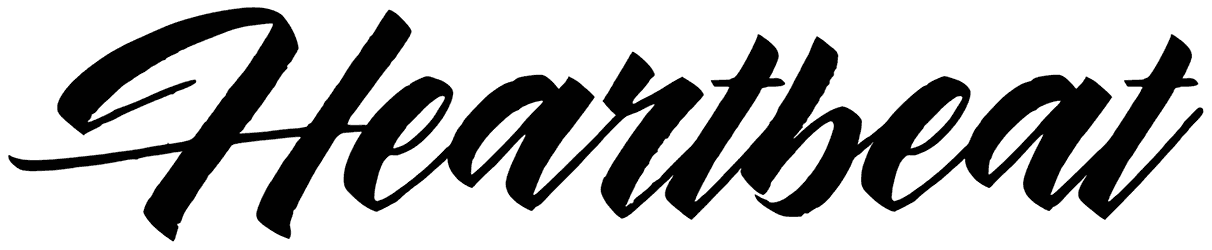
Heartbeat Font
It may seem tough to pick the proper font for a design, but the fact is that RB is here to help you move your writing out of the duplication zone and into the development zone simply by using a practical script font.
Heartbeat is excited to transform your concept into stunning artwork. Take a look at its flowing style; it would be perfect to create a classic feel in calligraphy, branding, and posters, despitethe fact that it might be a bit unreadable.